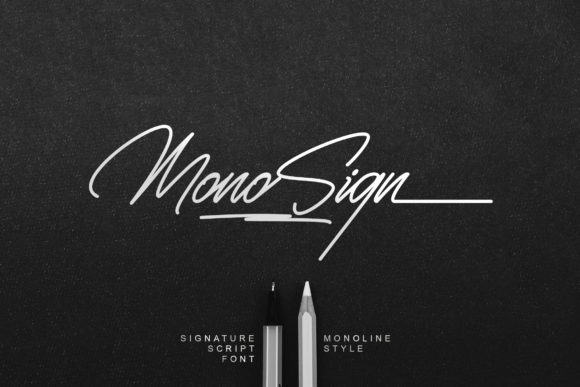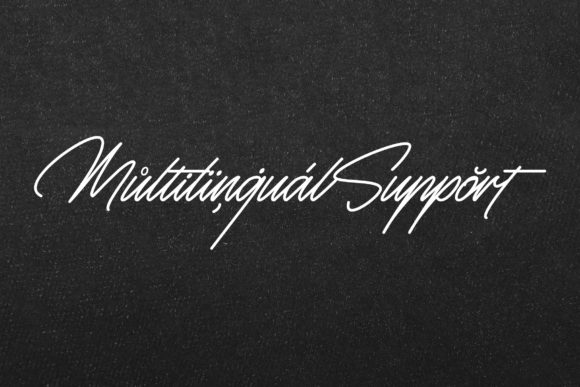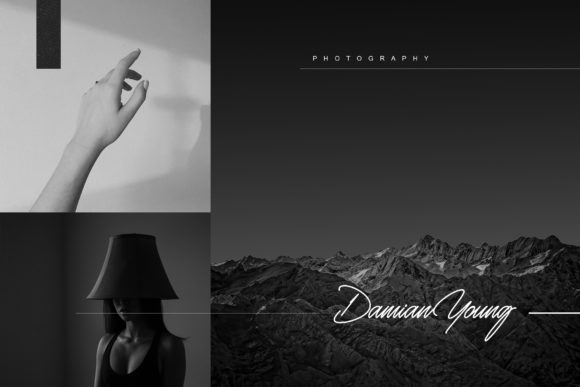
About Monosign Font
Monosign is a signature script font, featuring a lovely flow. It has a clean, thin and smooth vibe and it will be a hit for any design that you want to add it to. This font is PUA encoded which means you can access all of the glyphs and swashes with ease!